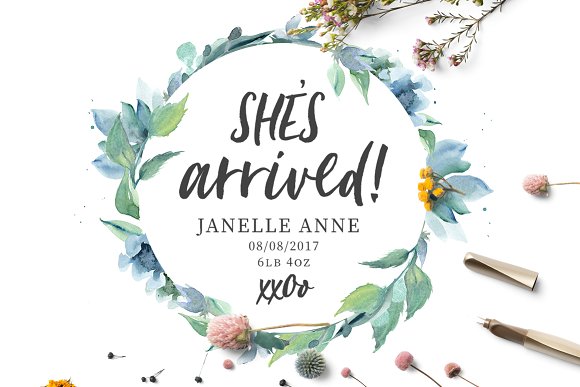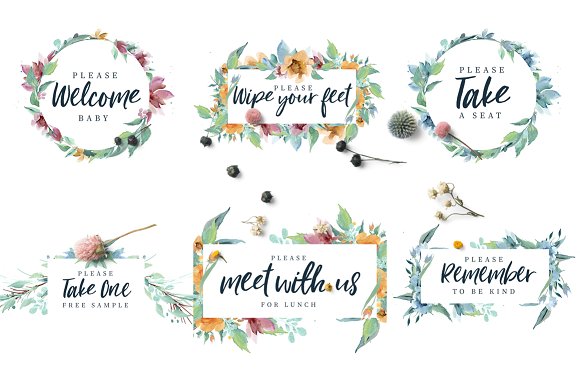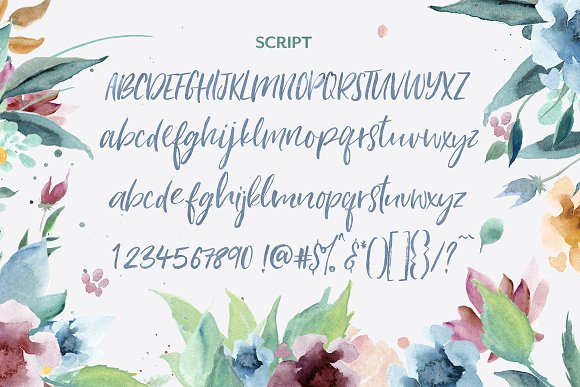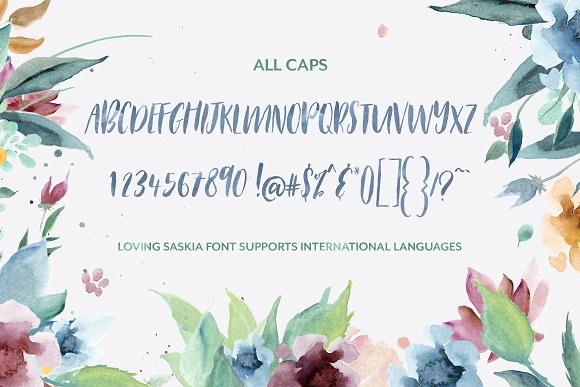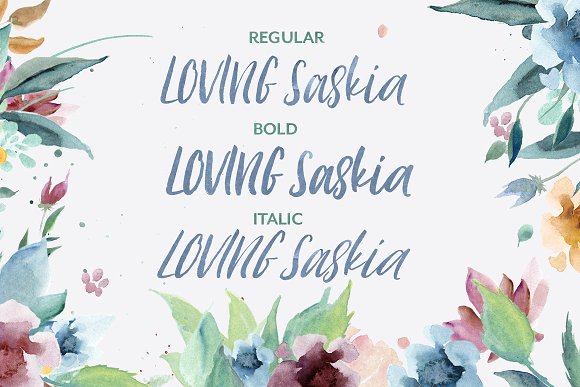
Introduction to Loving Saskia Font
Have you ever been in a creative zone, pouring your heart and soul into a project, and then suddenly, the perfect font appears, elevating your design to a whole new level? That’s exactly what happened to many designers when they discovered the Loving Saskia Font. This beautiful handcrafted font, created by the talented team at Creativeqube, has been a game-changer for many creative projects.
What makes Loving Saskia Font so special? For one, its high-quality design makes it a valuable resource for any designer looking to add a touch of elegance to their work. With a transparent background, this font seamlessly integrates with any design element, making it a versatile choice for a wide range of creative projects.
Loving Saskia Font
- High-quality font design with a transparent background, perfect for creative projects.
- Features a unique, hand-drawn style with elegant lines and subtle flair, making it ideal for invitations, quotes, and other creative endeavors.
- High-resolution design (up to 300 DPI) ensures crisp and clear text display, even at larger sizes.
- Designed to be highly legible, with clear letterforms and generous kerning, making it suitable for body text and headings alike.
Honest Review: Loving Saskia Font
I recently had the chance to work with the Loving Saskia Font, and I must say it’s been a great addition to my design resource collection. The font is of high quality, with a beautiful, elegant style that’s perfect for a variety of creative projects.
One of the standout features of the Loving Saskia Font is its transparent background, making it easy to layer over other design elements without any hassle. This is a big plus for designers who value simplicity and flexibility.
- ✨ Elegant and sophisticated design style
- ✨ Transparent background for easy layering
- ✨ High quality font for professional-looking designs
- ⚠️ Limited font sizes available (only a few options)
- ⚠️ Not suitable for bold or dramatic designs (may get lost in the background)
Overall, I’m really impressed with the Loving Saskia Font. It’s a great addition to any designer’s toolkit, and I’ve already used it in a few projects with great results. If you’re looking for a high-quality font for your next creative project, I’d definitely recommend giving it a try.
Loving Saskia Font
Use the Loving Saskia Font in combination with high-quality images to create visually appealing designs. Experiment with different font sizes and colors to add depth and interest to your design.
The Loving Saskia Font is perfect for creating social media graphics, blog posts, and marketing materials. It’s also great for use in branding and identity projects, such as logos and business cards.
1. Alex Brush
Alex Brush is a high-quality, elegant script font perfect for creative projects that require a touch of sophistication. It’s ideal for wedding invitations, branding, and other design elements that need a delicate, handwritten feel. With its transparent background, Alex Brush is easy to layer and customize. It’s available for free download, making it a valuable design resource for any project.